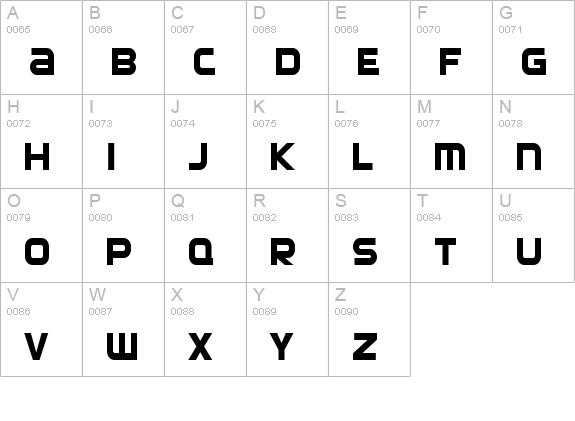
SF Automaton Condensed Font Details
SF Automaton Condensed is a distinctive, condensed-width variant in the SF typeface family \xE2\x80\x94 well suited to design and typography projects.
SF Automaton Condensed is a sleek and modern font that effortlessly blends sophistication with a touch of futuristic flair. This condensed typeface is perfect for adding a touch of elegance to any design project, from sleek logos to eye-catching headlines. With its clean lines and geometric shapes, SF Automaton Condensed exudes a sense of sleekness and professionalism. The condensed nature of the letters allows for maximum impact in a minimal amount of space, making it ideal for projects where space is at a premium. But what sets SF Automaton Condensed apart is not just its impeccable design, but also its accessibility. This font is freely available to download at FontsMarket.com, making it a valuable asset for designers, whether they are working on personal projects or commercial endeavors. Whether you're looking to create a sophisticated branding package or add a touch of elegance to your website, SF Automaton Condensed is the perfect choice. With its sleek and futuristic design, this font is sure to make a lasting impression. And the best part? It's free and readily available for download at FontsMarket.com, ensuring that you have access to this stunning font whenever inspiration strikes.